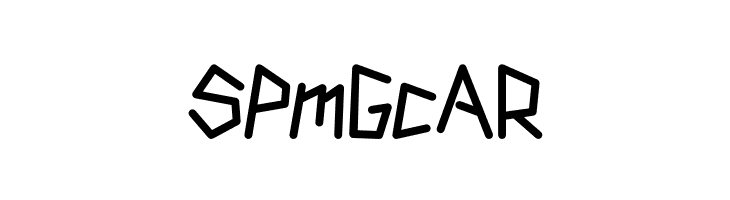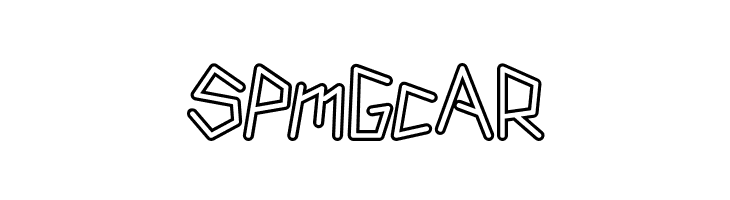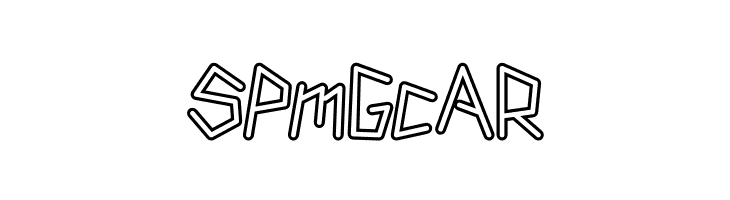
• Insurgence
A bold, angular font with a geometric and edgy style.
• Insurgence
A bold, angular font with a hand-drawn, graffiti-like style.
• Insurgence Outline
A bold, geometric outline font with a modern and edgy style.
• Insurgence Outline
A bold, geometric outline font with sharp angles and clean lines.
• Insurgence Thin
A geometric, angular font with a hand-drawn, edgy style.
• Insurgence Thin
A modern, angular font with a geometric, edgy style.